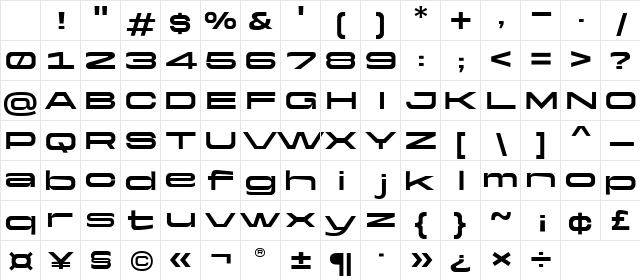
Complete Yapari Wide Bold glyph index. Displaying only characters natively supported by Yapari Wide Bold font.
Yapari Wide is a composed and adaptable typeface that performs quietly and consistently across a wide range of design contexts. Its bold stroke weight gives it real presence on the page.